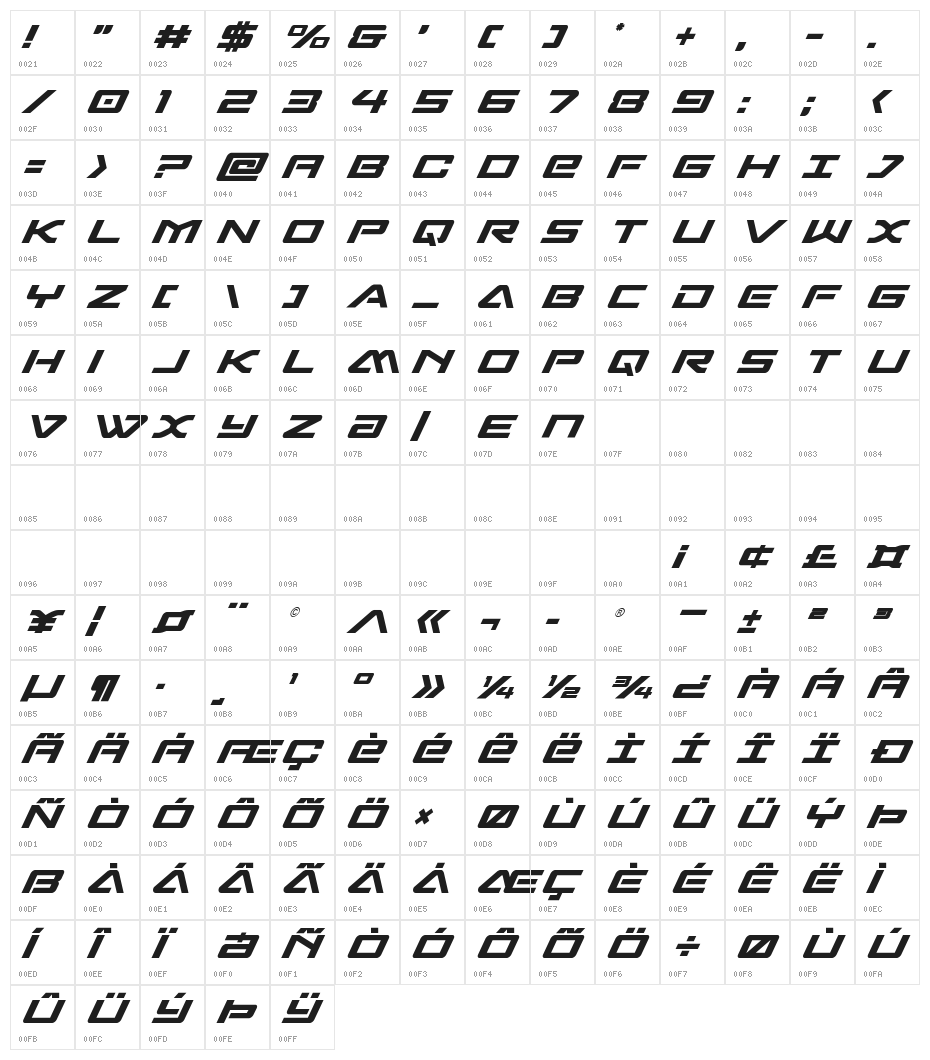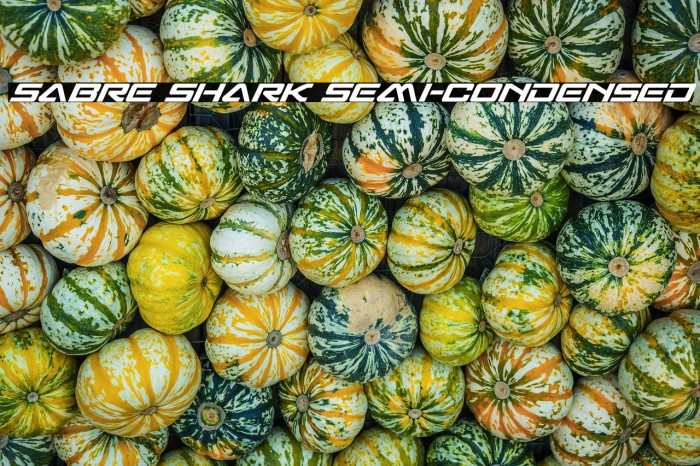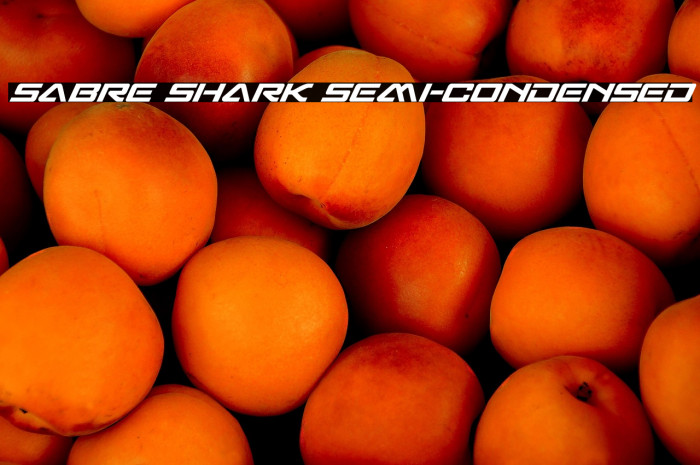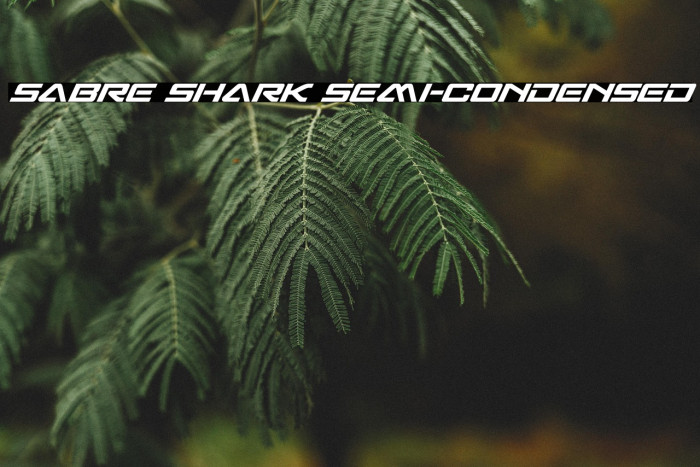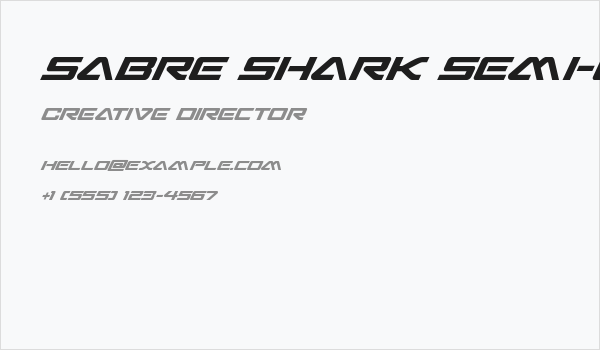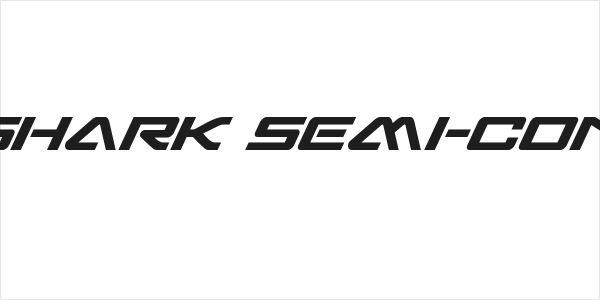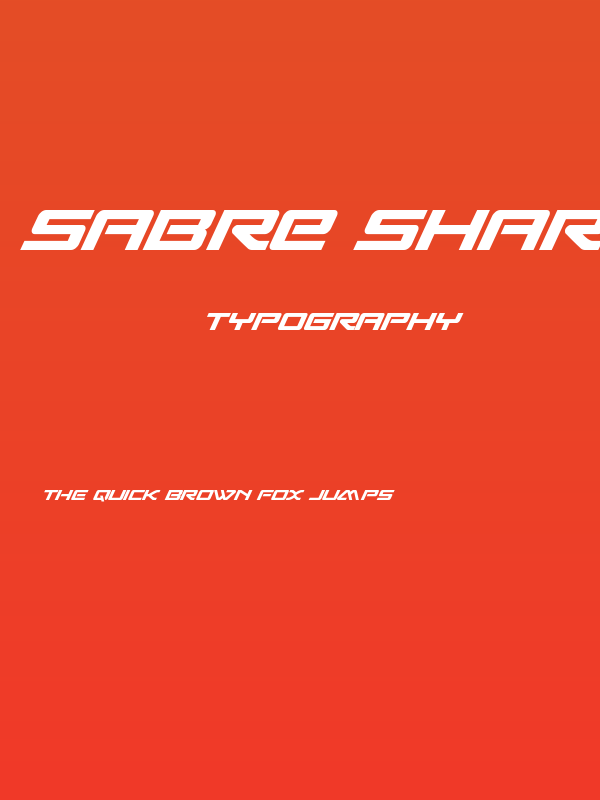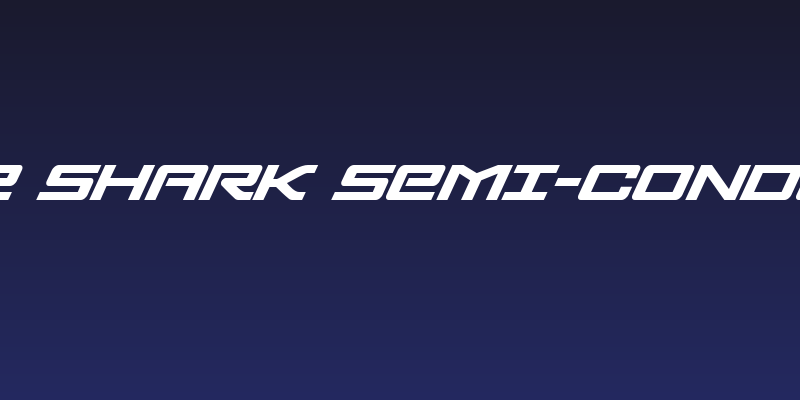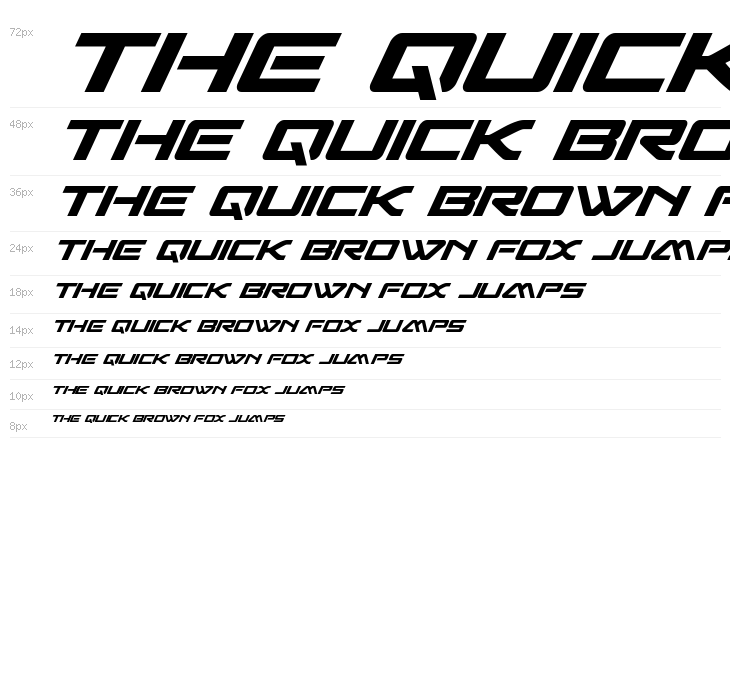
Sabre Shark Semi-Condensed Font
Sabre Shark Semi-Condensed Description
This font features a bold and dynamic design with a futuristic flair. The characters are semi-condensed, giving them a sleek and streamlined appearance. The angular cuts and sharp edges contribute to a sense of speed and modernity, making it ideal for projects that require a strong visual impact. The uppercase and lowercase letters maintain a consistent style, while the numerals and special characters complement the overall aesthetic. The font's unique style is suitable for creating eye-catching headlines, logos, and branding materials that demand attention.
| Proposed Projects | Ideal for futuristic branding, sports team logos, tech product packaging, and dynamic headlines. |